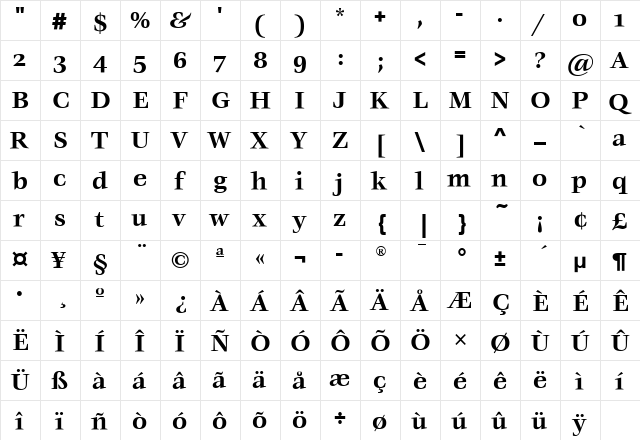
VeljovicOSITC Bold Font Preview
VeljovicOSITC Bold
VeljovicOSITC Bold Font Details
Design Context for VeljovicOSITC Typeface
VeljovicOSITC offers clean, dependable letterforms without strong stylistic allegiance, making it a practical choice for designers who need flexibility. The heavy weight commands attention and anchors typographic hierarchies.